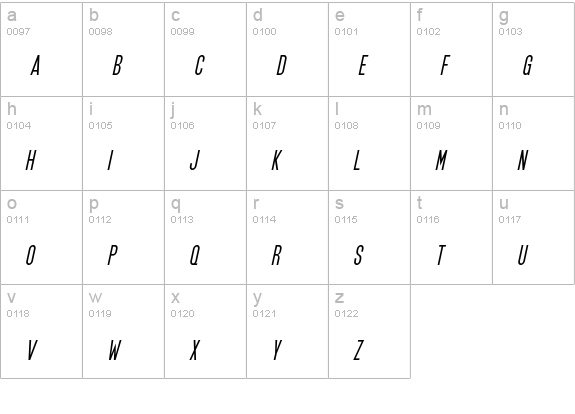
SF Movie Poster Oblique Font Details
SF Movie Poster Oblique is a distinctive, italic variant in the SF typeface family \xE2\x80\x94 well suited to design and typography projects.
Introducing SF Movie Poster Oblique font, a futuristic and dynamic typeface that encapsulates the essence of science fiction movies. This font is designed to transport you to a world of imagination, where technological advancements and thrilling adventures intertwine. Its sleek and angular letters exude a sense of energy and excitement, perfectly mirroring the fast-paced nature of the genre. SF Movie Poster Oblique font is not only visually captivating but also highly versatile. Whether you are designing a movie poster, creating digital artwork, or crafting a logo for a tech company, this font will effortlessly elevate your project to new heights. Its unique and eye-catching design ensures that your message will stand out amongst the crowd. But what sets SF Movie Poster Oblique font apart is its accessibility. In an era where creativity knows no bounds, this font is freely available to download at FontsMarket.com. This means that you can unleash your imagination without any limitations or barriers. Embrace the freedom to create and let SF Movie Poster Oblique font be your creative companion. Download SF Movie Poster Oblique font today and embark on a journey of innovation and limitless possibilities. With its futuristic charm and user-friendly availability, this font is a must-have for any designer, artist, or enthusiast. Don't miss out on the opportunity to make a bold statement with your typography – let SF Movie Poster Oblique font be your gateway to a world of creativity.